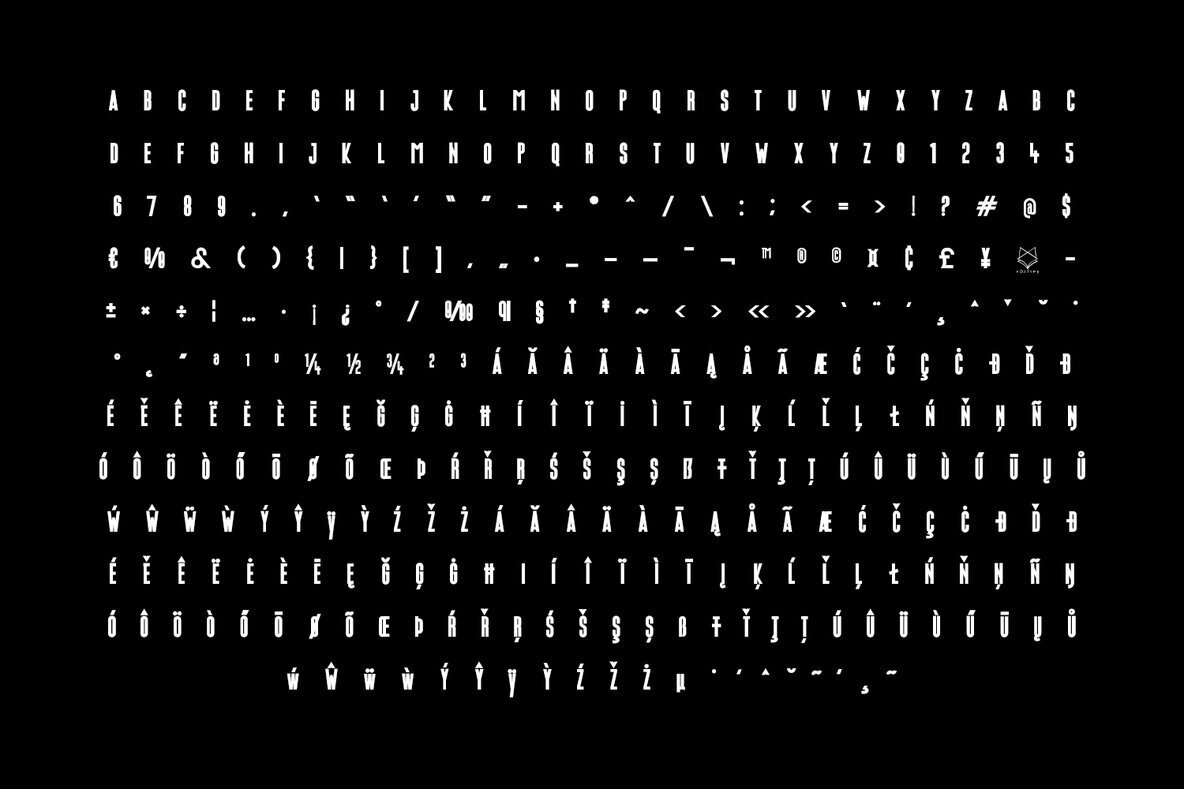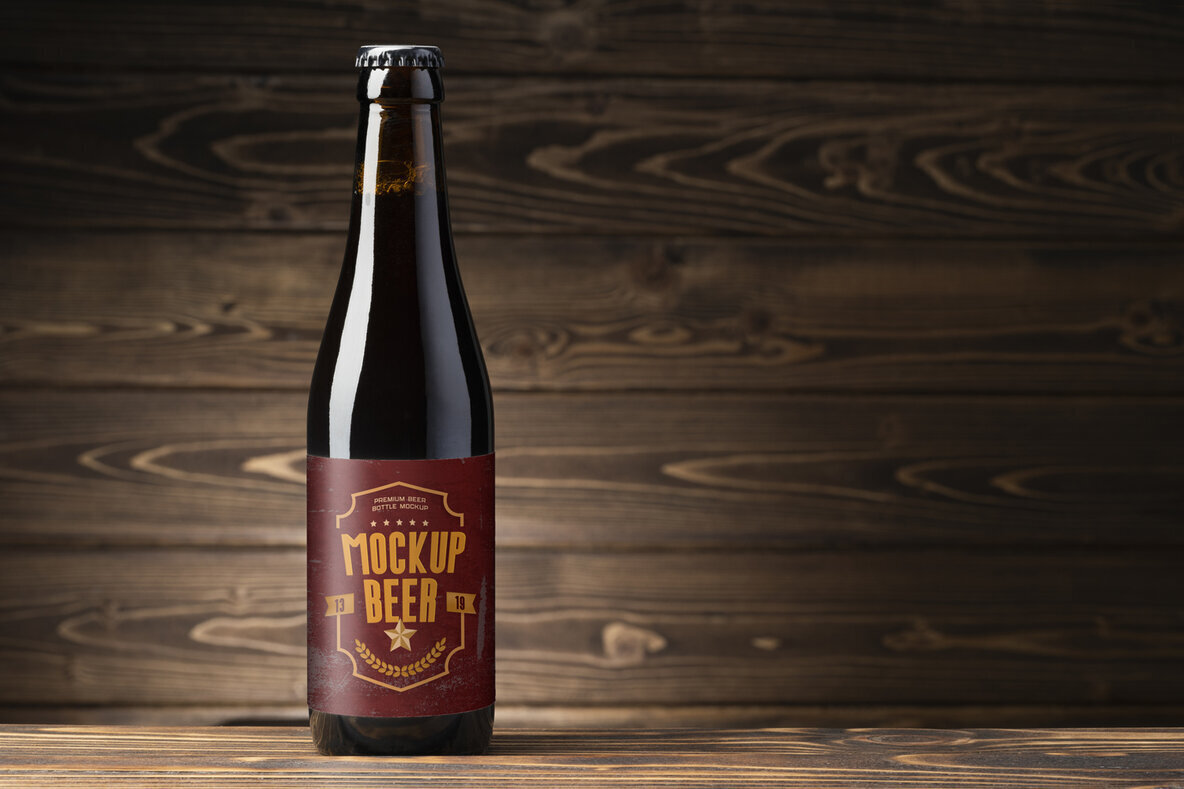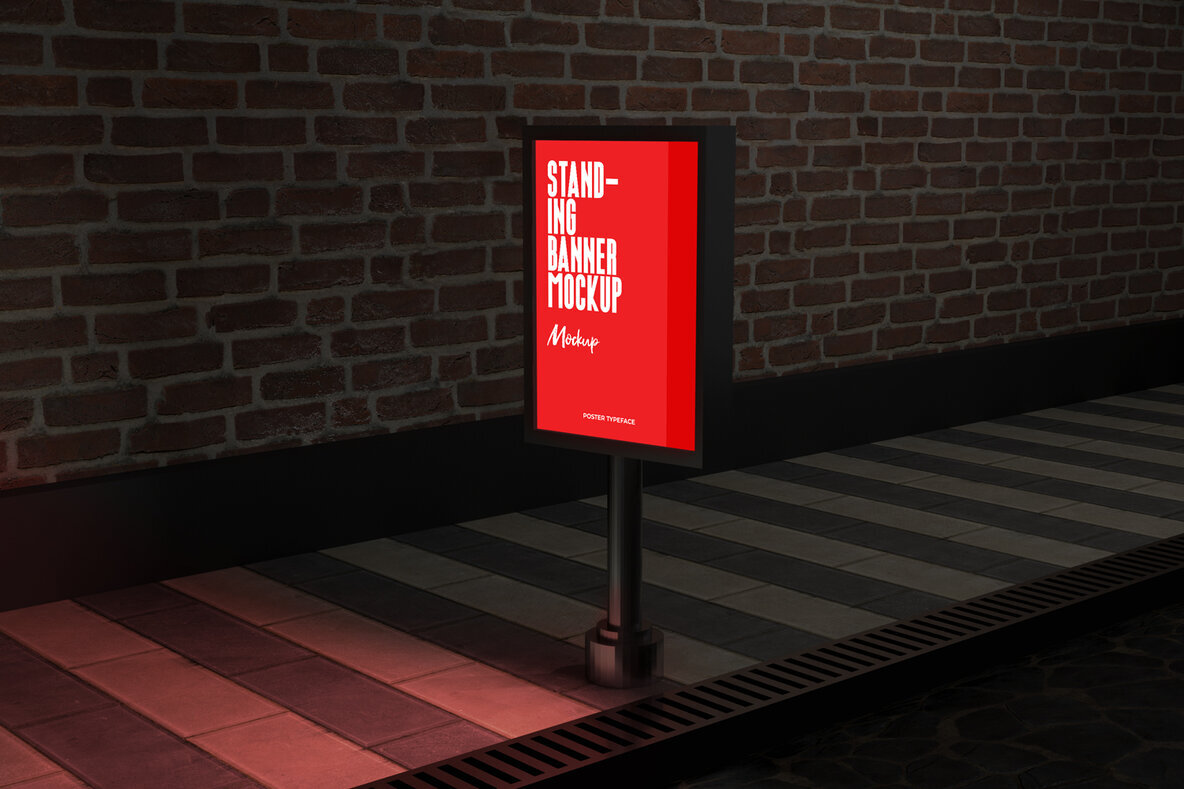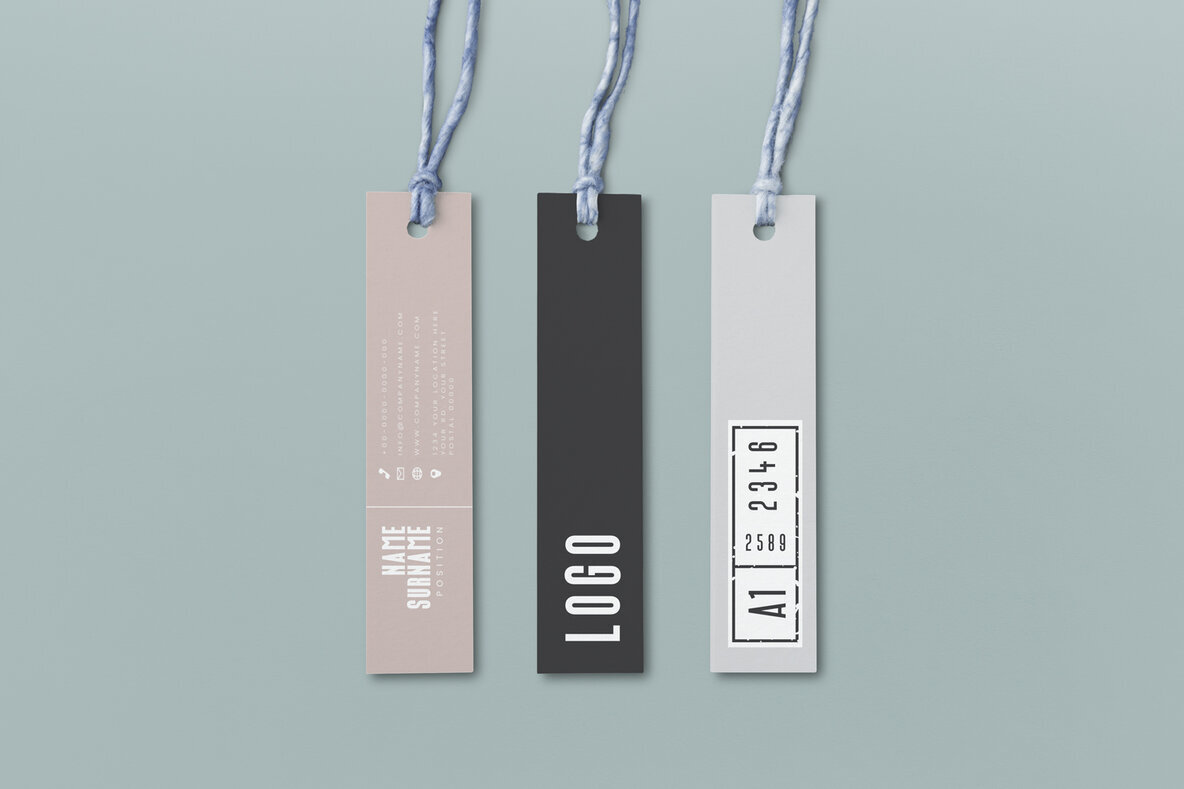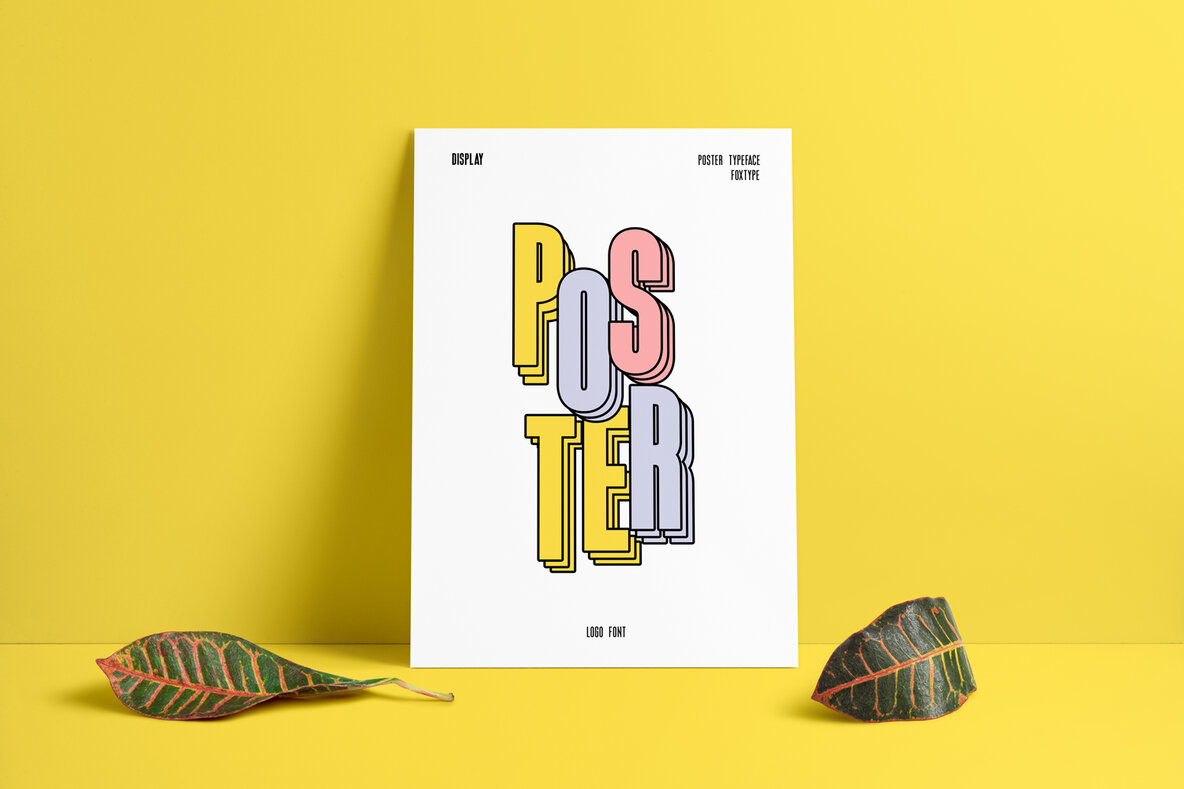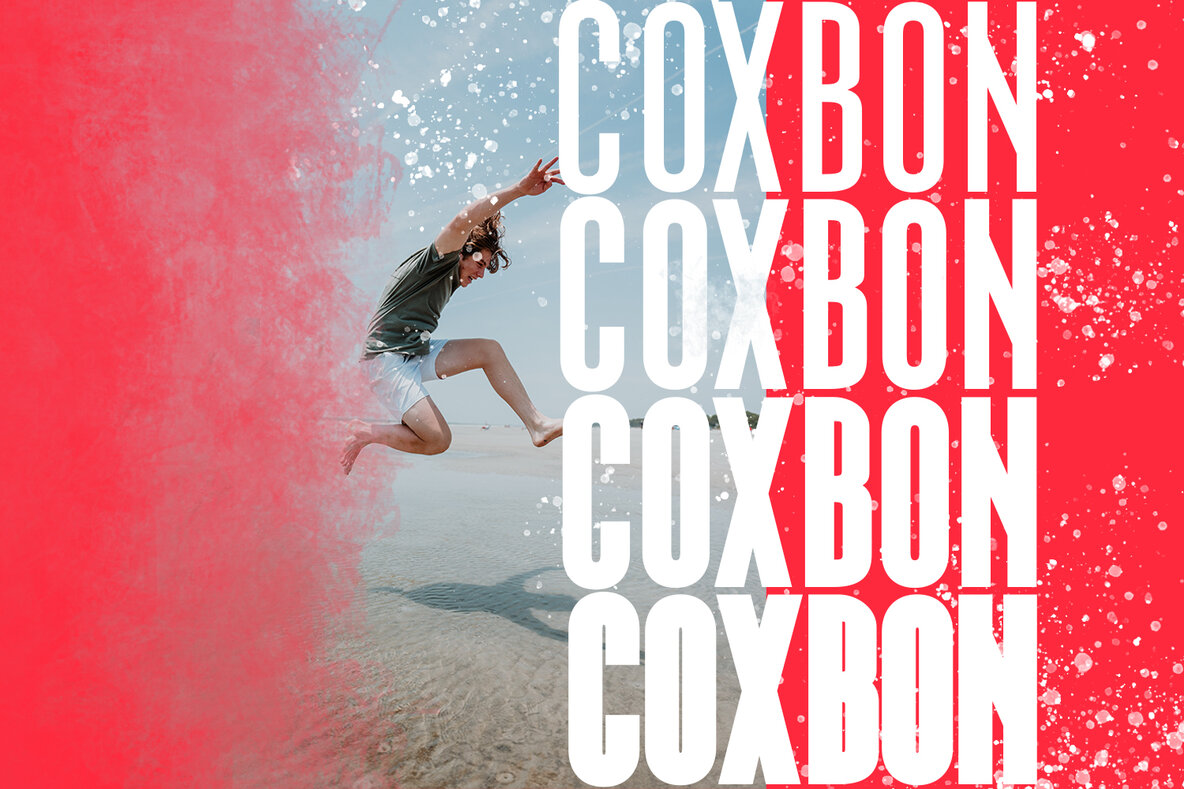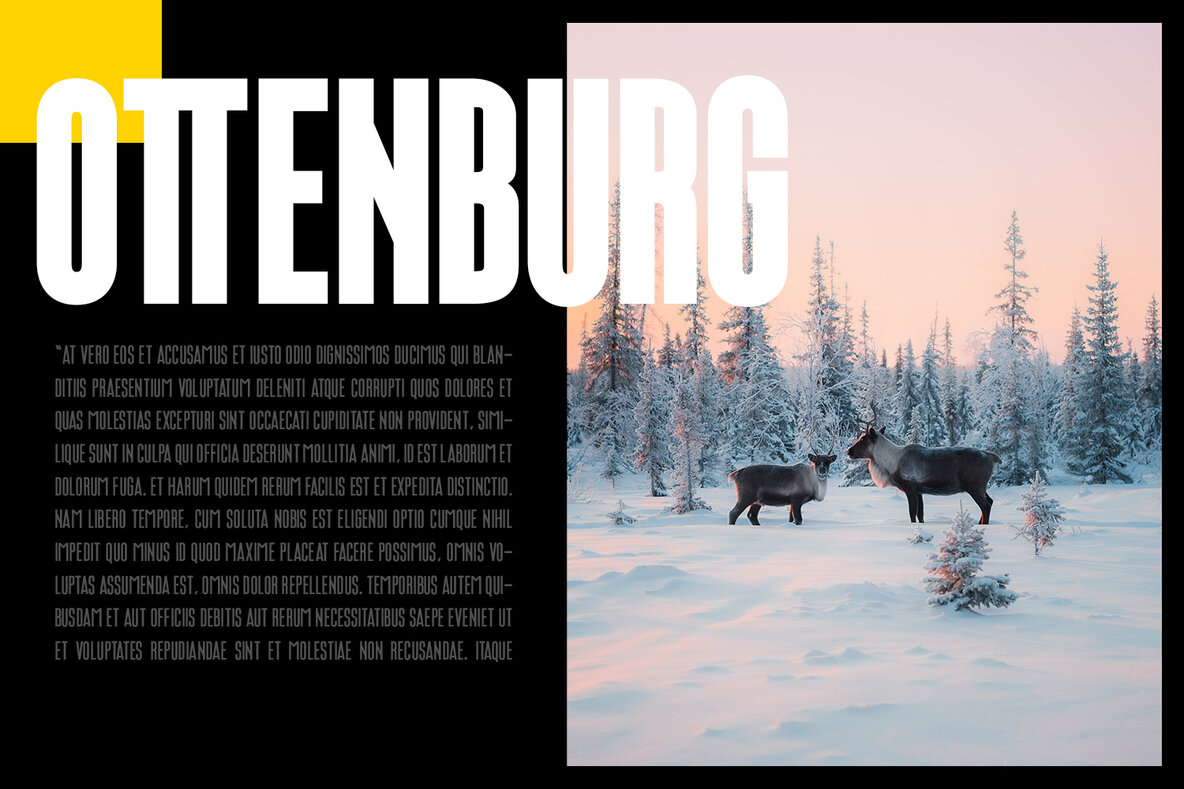
Ottenburg Display Font
Ottenburg Display presents an elegant yet assertive typeface, designed with precision by FoxType Co. This typeface embodies a balance of reliability and contemporary flair, making it a compelling choice for a range of creative applications. Whether you are crafting logos, developing magazine layouts, or working on cinematic titles, Ottenburg Display integrates seamlessly into any design aesthetic. Its versatility extends across branding, headlines, captions, and promotional materials, offering an opportunity to create visually striking compositions. The varied weights encourage exploration and adaptation to different contexts, ensuring the typeface stands out without losing its clarity or aesthetic appeal.Ottenburg Display: Refinement and Versatility in Type